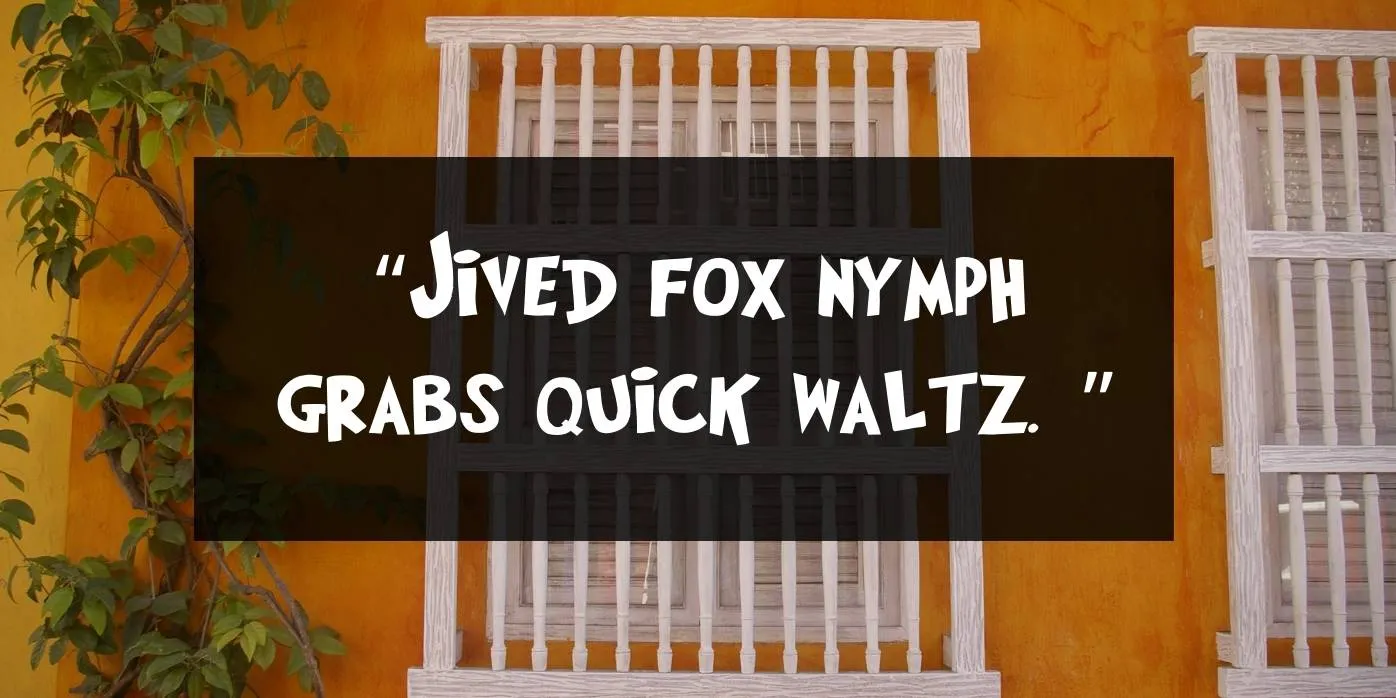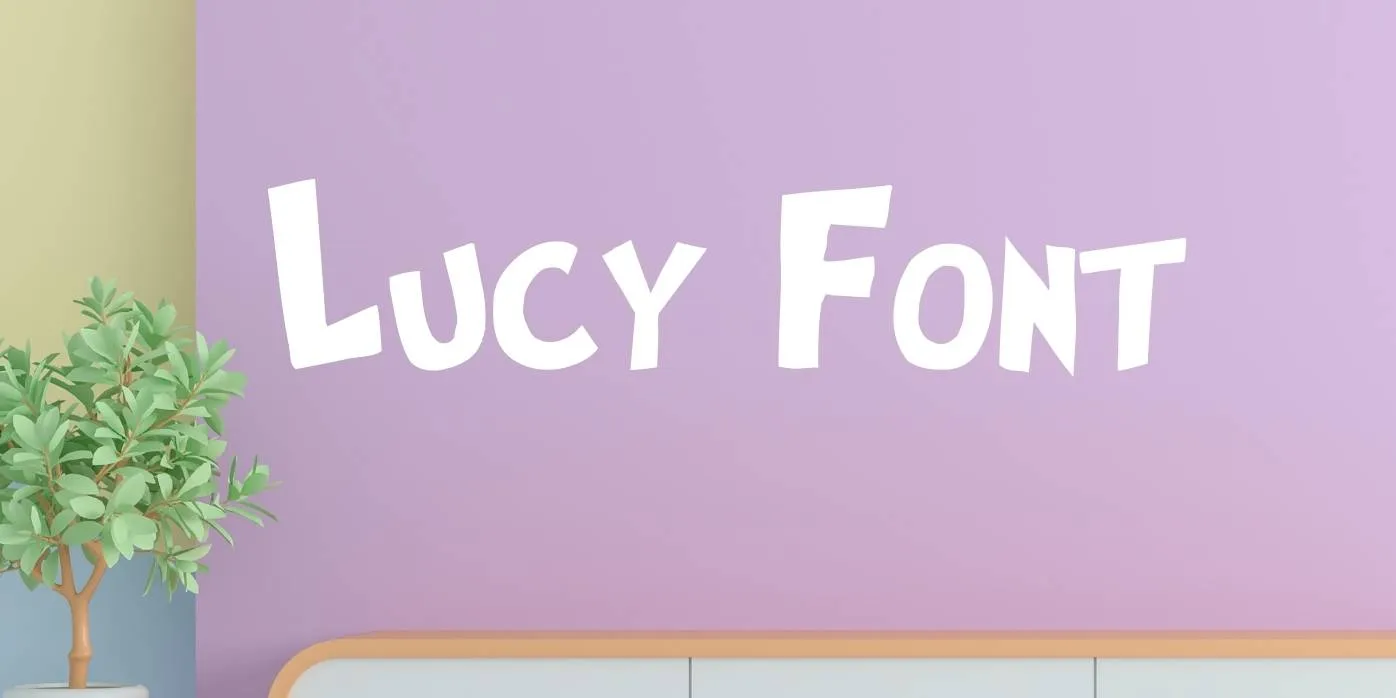
Lucy Font
Lucy Font is an awesome and soft-looking font that belongs to the Fancy font family. A very popular designer Mario Arturo designed this cute font family. This tremendous font family has more than 193 special characters. It comes in many styles also that make it perfect for different designs.
Its popular swashes and ligatures are perfect for making different types of classic designs. It is not in google Font. However, its copy and paste are very helpful for various designs. This typeface is very famous because of its rounded letters.